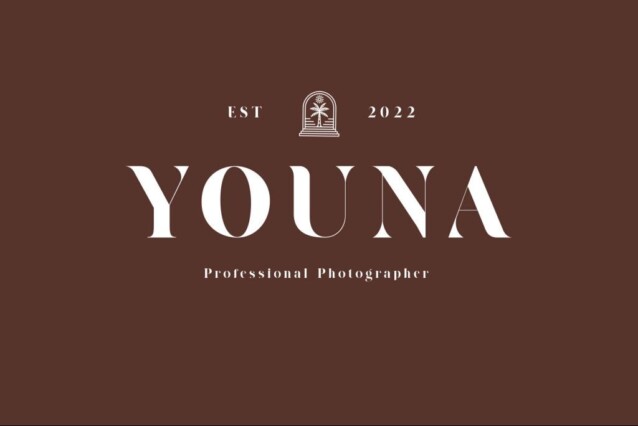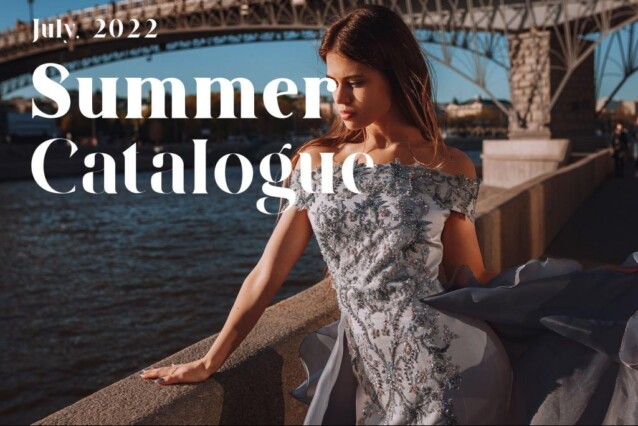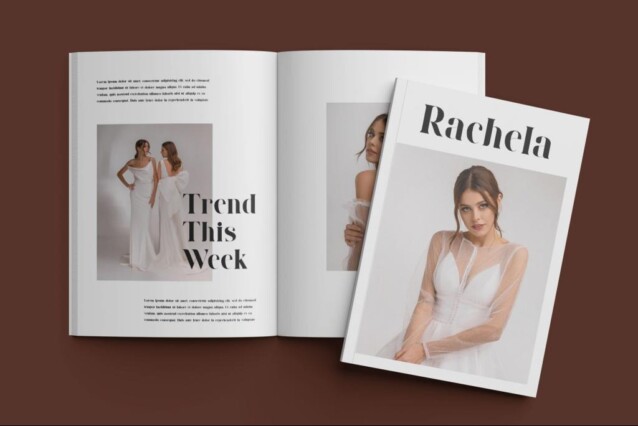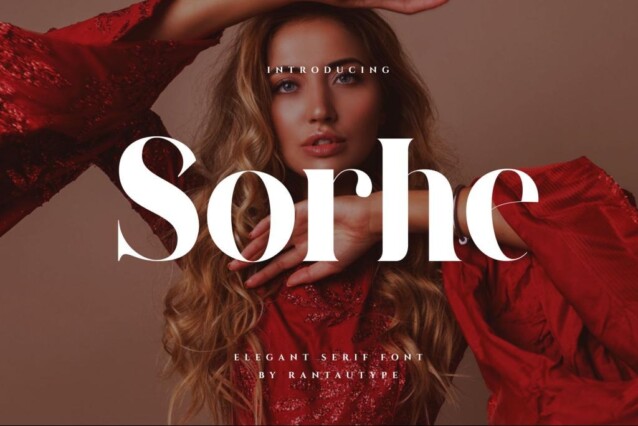
Sorhe Font
Sorhe Font is a captivating font with a unique and bold serif display style. With its clean lines and balanced proportions, this font exudes sophistication and versatility. Perfect for branding, editorial design, and luxury products, Sorhe adds a touch of refinement and professionalism to any project. Embrace its timeless appeal and elevate your typographic compositions with Sorhe.